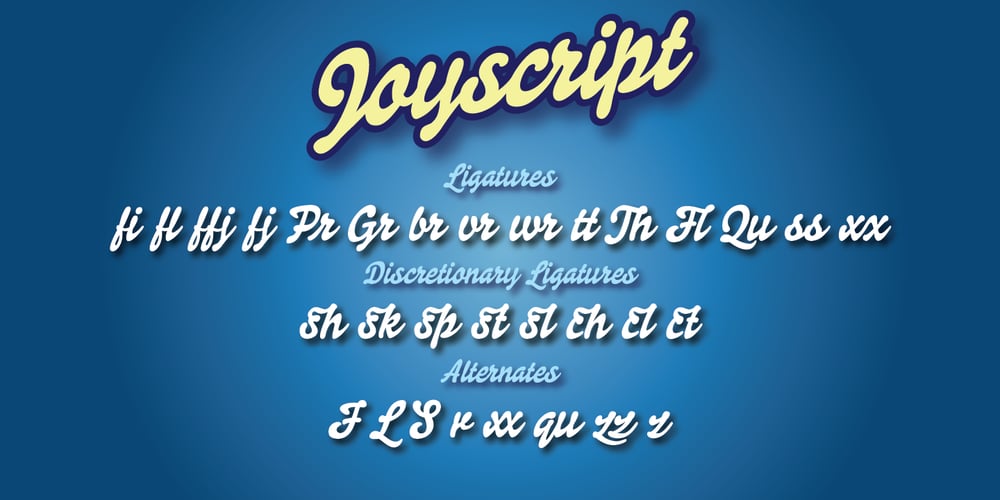
Joyscript
Joyscript font
Joyscript Font Family was designed by John Nahmias and published by Jonahfonts. Joyscript contains 1 styles and family package options. Inspired by many hand-lettered European package designs. This script face is suitable for logos, casual headlines and designs calling for attention.